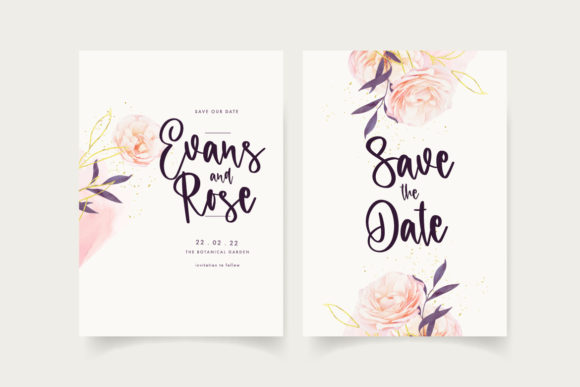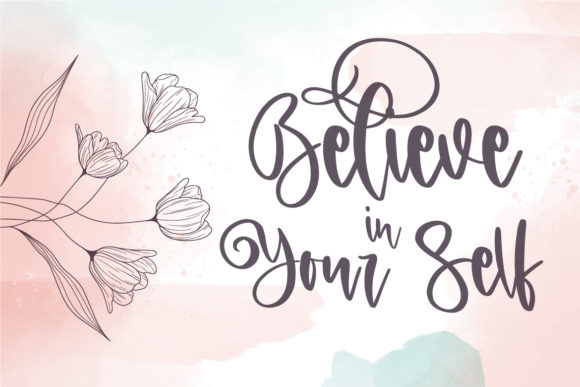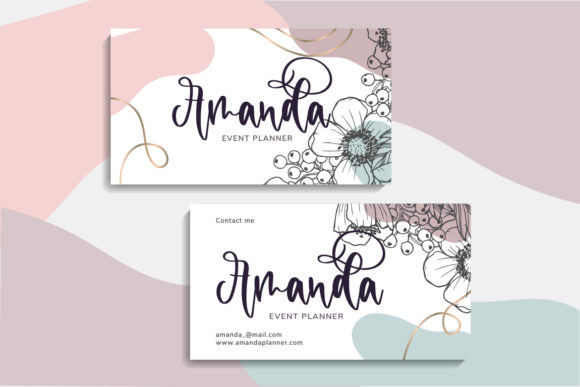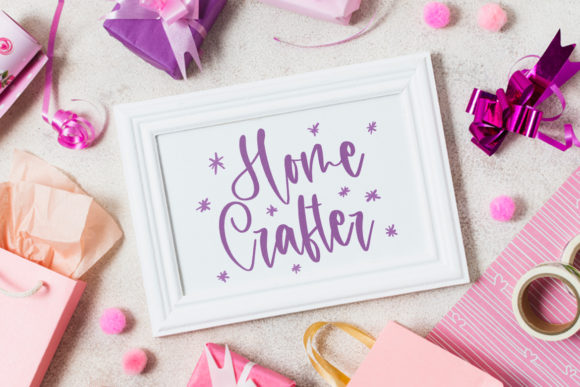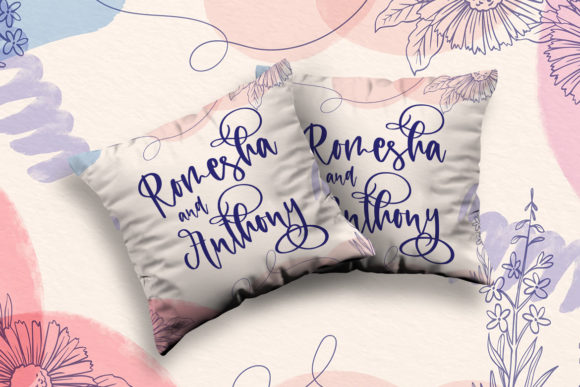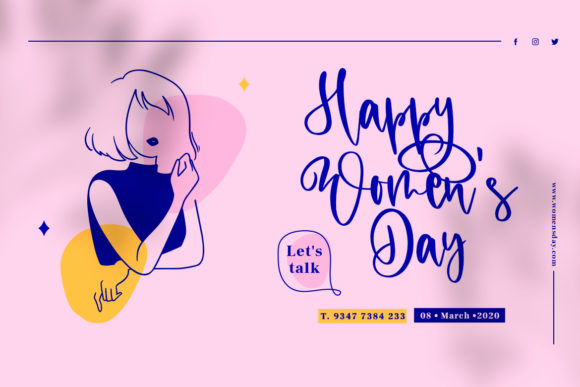
Unlock Your Creative Potential with the Enchanting Amiya Font
Remember that magical moment when you finally stumbled upon the perfect font to bring your artistic vision to life? It’s like the stars aligned, and your design just clicked. For many of us, finding the right font can be a game-changer, and that’s exactly what the Amiya Font promises to deliver.
This carefully crafted magical script font is designed to add a touch of elegance to any project. Whether you’re creating a stunning Instagram post or crafting beautiful calligraphy scripts for DIY projects, Amiya Font is the perfect companion to help you turn your creative ideas into breathtaking masterpieces. As a valuable asset for designers, the Amiya Font offers endless possibilities for self-expression and artistic growth.
Amiya Font Key Features
- Unique Characteristics: Amiya Font is a modern, elegant script font designed to evoke a sense of sophistication and refinement. It features connected letterforms, swashes, and flourishes, making it perfect for wedding invitations, branding, and high-end packaging.
- Font Variations: Available in 6 different styles, including Regular, Italic, Bold, Bold Italic, Script, and Script Italic.
Amiya Font Review
Overall, I have mixed feelings about the Amiya font. There are some aspects that I truly appreciate, but there are also some limitations that I’d like to point out.
- The Amiya font has a unique and elegant design that’s perfect for creative projects. Its handwritten feel makes it stand out from more traditional fonts.
- The font is highly legible, even at smaller font sizes, which is great for body text or captions.
- The font family includes a wide range of weights and styles, making it easy to find the perfect match for your project.
- The font can be a bit too ornate for some projects, making it difficult to read in certain contexts.
- The font lacks a clear hierarchy, which can make it hard to distinguish between headings and body text.
- The font is not suitable for small text sizes or low-resolution displays, where the details can become lost.
Overall, I think the Amiya font is a great choice for creative projects that require a unique and elegant touch. However, it may not be the best fit for more traditional or formal projects.
Alternatives to Amiya Font
Playfair Display is a luxurious and elegant serif font ideal for high-end branding, magazines, and advertising. Its refined details and classic feel make it a great choice for designers looking for a sophisticated look.
Comparison to Amiya Font: While Amiya Font is known for its clean lines and modern feel, Playfair Display is more ornate and traditional. Playfair Display is better suited for formal and elegant designs, whereas Amiya Font is ideal for modern and minimalist designs.
Montserrat is a modern sans-serif font designed for urban environments. It’s perfect for creating a sleek and contemporary look, making it ideal for technology, fashion, and lifestyle brands.
Comparison to Amiya Font: Montserrat is more geometric and industrial compared to Amiya Font’s clean and elegant lines. While Amiya Font is ideal for modern designs, Montserrat is better suited for bold and edgy designs.
Abril Fatface is a luxurious and elegant script font ideal for high-end branding, invitations, and advertising. Its refined details and classic feel make it a great choice for designers looking for a sophisticated look.
Comparison to Amiya Font: While Amiya Font is known for its clean lines, Abril Fatface is more ornate and traditional. Abril Fatface is better suited for formal and elegant designs, whereas Amiya Font is ideal for modern and minimalist designs.